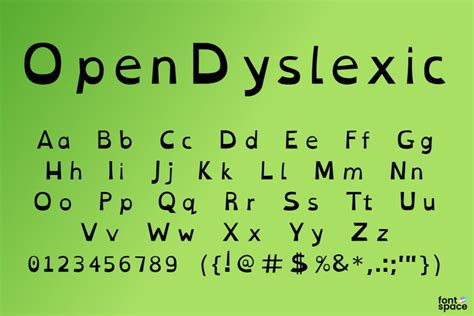
Best Fonts for Dyslexia and Why They Work
Dyslexia Font Generator. Dyslexia fonts help people with this disability to read text easier and more clearly. Lexend fonts are intended to reduce visual stress and so improve reading performance.